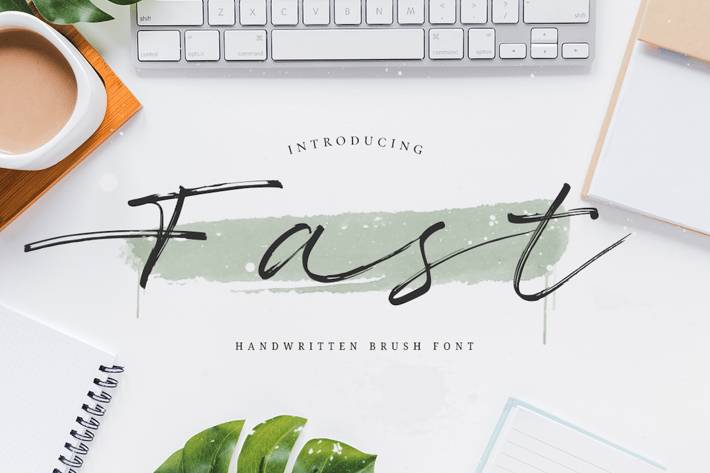
Fast - Handwritten Brush Font
Fast Brush Font is a modern hand brush script. It's allowing you to create casula hand-made typography
in an instant.
Fast Brush Font is to use for any kind of design such as branding projects,
logo, brochures, business card, wedding designs, social media posts, advertisements, product packaging,
product designs, label, photography, watermark, invitation, brand company, stationery and any
projects that need handwriting taste.
+ with Regular style
+ with Swash